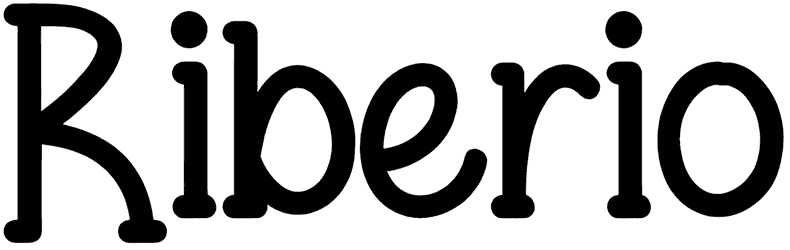
Riberio Font
Would you like to have a realistic design with a cute and minimal vibe? This unique handwritten font, which is called Riberio, is a nice chance to create this mood for your design. Even if there is no offer for numbers and punctuation marks, this cartoon font with its cheerful vibe will be an apt illustration for a lot of items, from posters to packaging.